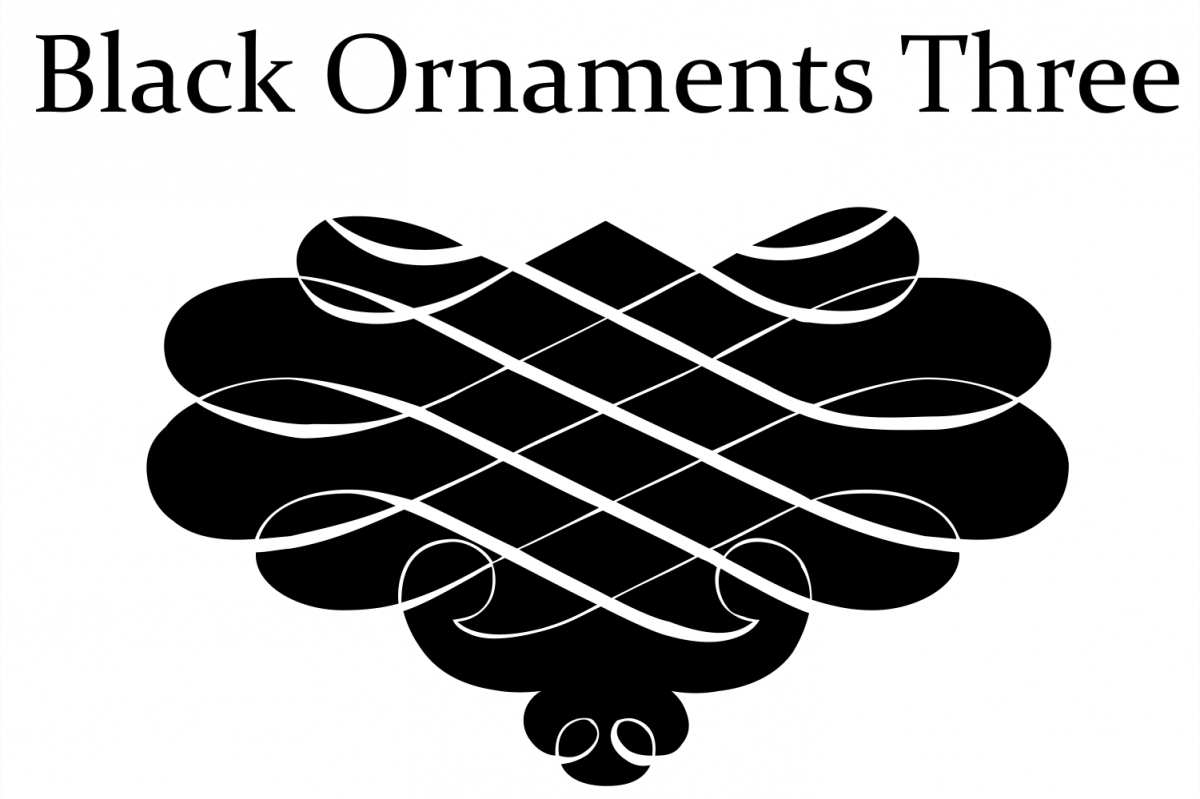
Black Ornaments Three
Black Ornaments Three is part of a family of ornament/dingbat fonts, inspired by the CalligraphiaLatina font series. Is excellent for use in editorial works of art and publishing, as the cover of books, headpieces, packaging, magazines and many other solutions. Take a look too in the family pack : https://fontbundles.net/intellecta-design/46722-black-ornaments-family-pack